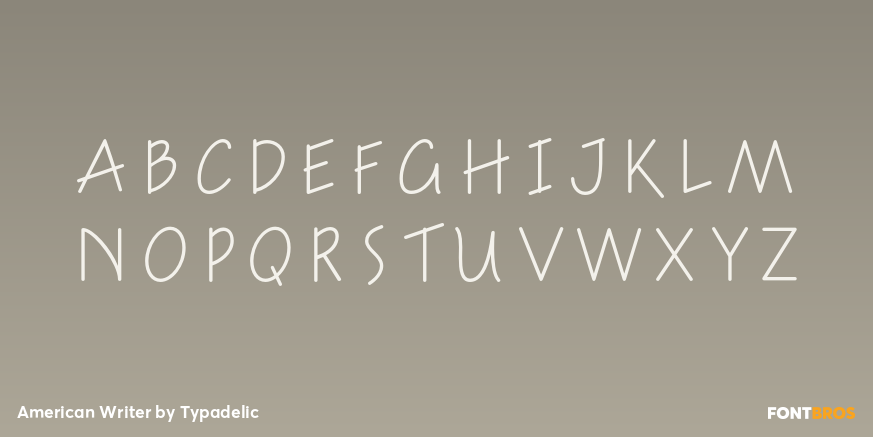
American Writer
Font Family by Typadelic
American Writer is suitable for many types of designs. It is intended to be used for body text, and is very readable at small text sizes. It looks similar to the type you would see on blueprints or an architect's drawings.